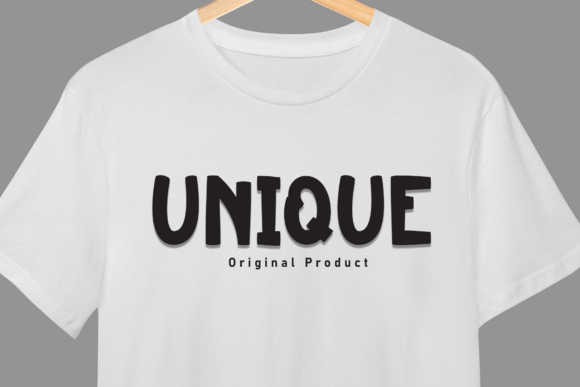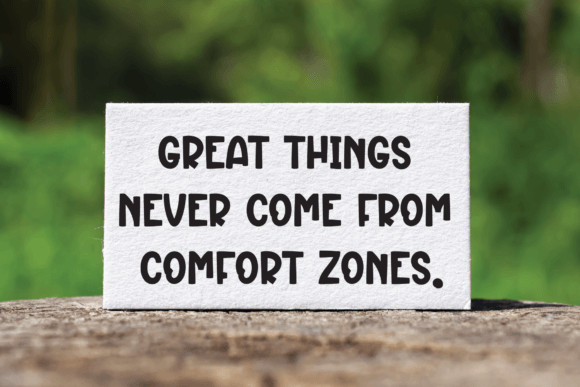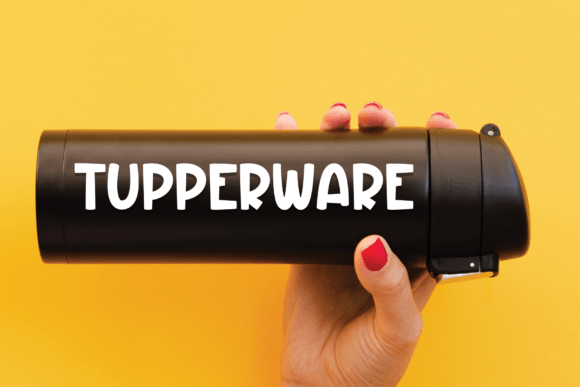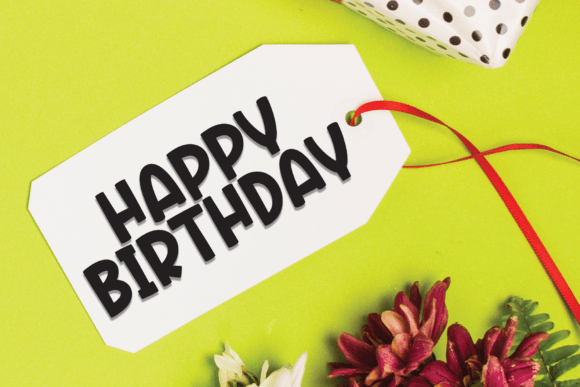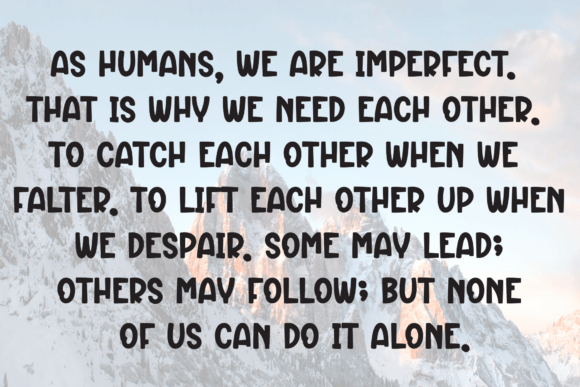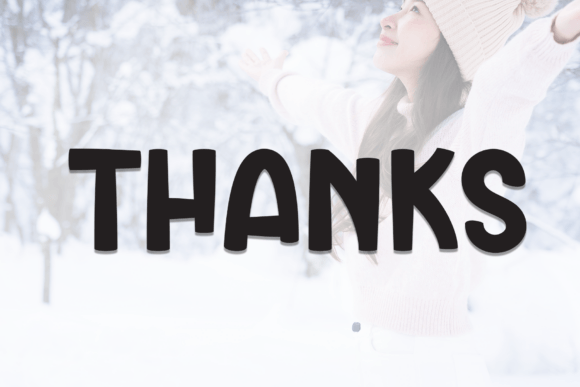
Happy Snowing Font: A Delightfully Warm and Welcoming Handwritten Display Font
Are you tired of using the same old fonts for your design projects? Look no further! Introducing Happy Snowing Font, a charming handwritten display font that is sure to bring a touch of warmth and whimsy to your creations. This delightful font is perfect for designers and crafters who want to add a personal and playful touch to their work.
A Perfect Companion for Wedding Invitations and Greeting Cards
Happy Snowing Font is a sweet and charming font that exudes warmth and hospitality. Its playful and fun-loving character makes it a perfect companion for crafting wedding invitations, creating heartfelt greeting cards, or bringing a fresh, fun touch to any design project. Whether you’re a designer or a crafter, this font is sure to inspire you to create something truly special.
What Makes Happy Snowing Font So Special?
So, what sets Happy Snowing Font apart from other fonts? Here are just a few reasons why this font is a must-have for designers and crafters:
- Unique and Whimsical Design: Happy Snowing Font features a unique and whimsical design that is sure to capture the attention of your audience. Its playful and fun-loving character makes it perfect for creating designs that are both fun and memorable.
- Handwritten with Love: This font is carefully crafted with love and attention to detail, giving it a personal and human touch that is hard to find in digital fonts.
- Perfect for a Variety of Design Projects: Happy Snowing Font is versatile and can be used for a variety of design projects, including wedding invitations, greeting cards, posters, and more.
- Easy to Read and Use: Despite its whimsical design, Happy Snowing Font is easy to read and use, making it perfect for designers and crafters of all skill levels.
How to Use Happy Snowing Font in Your Design Projects
Using Happy Snowing Font in your design projects is easy! Here are a few tips to get you started:
- Pair it with Other Fonts: Happy Snowing Font pairs well with other fonts, so don’t be afraid to get creative and experiment with different font combinations.
- Use it for Headings and Titles: This font is perfect for headings and titles, where its playful and whimsical design can really shine.
- Add it to Your Digital or Print Designs: Happy Snowing Font can be used in both digital and print designs, making it a versatile addition to your font collection.
Why Designers and Crafters Love Happy Snowing Font
Designers and crafters love Happy Snowing Font for many reasons. Here are just a few:
- It Adds a Personal Touch: Happy Snowing Font adds a personal and human touch to designs, making them more relatable and engaging.
- It’s Fun and Playful: This font is fun and playful, making it perfect for designers and crafters who want to add a touch of whimsy to their work.
- It’s Versatile: Happy Snowing Font can be used for a variety of design projects, making it a valuable addition to any font collection.